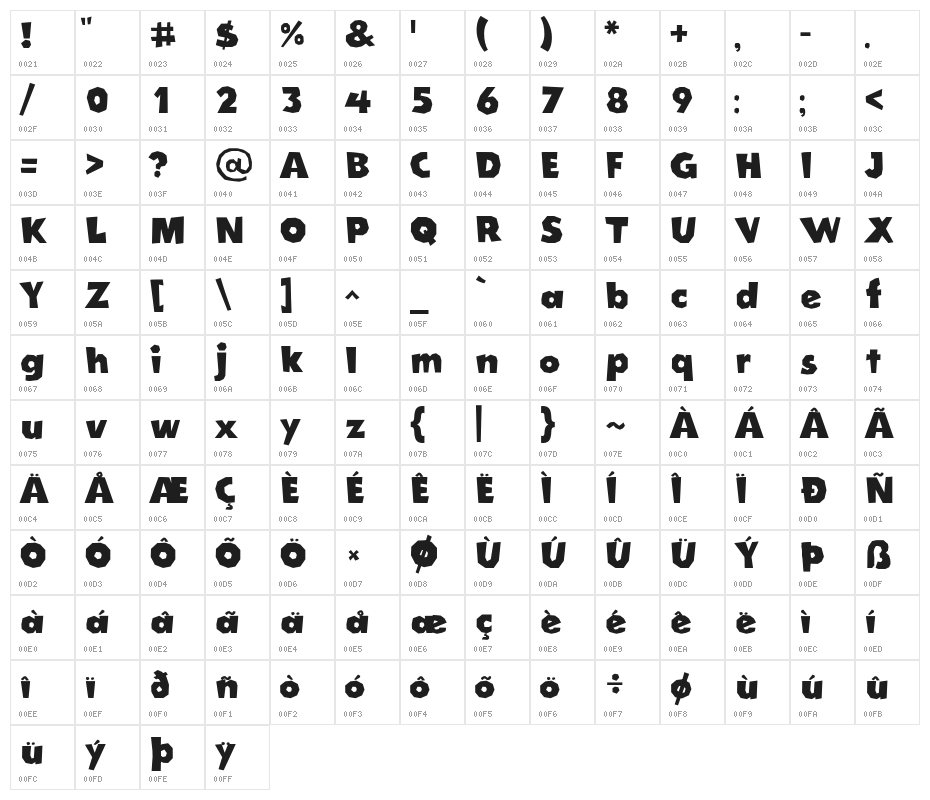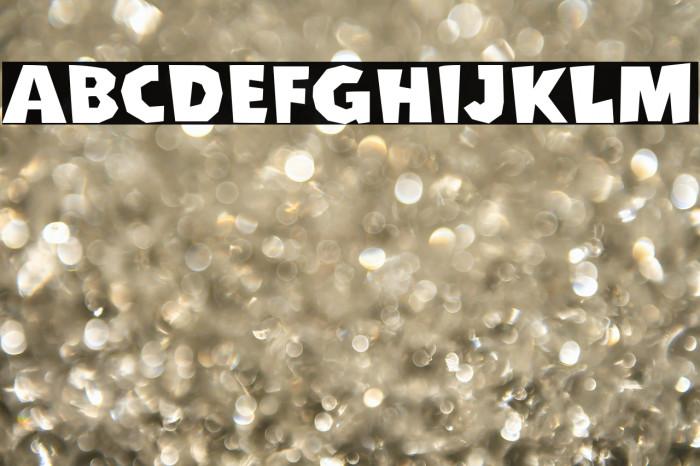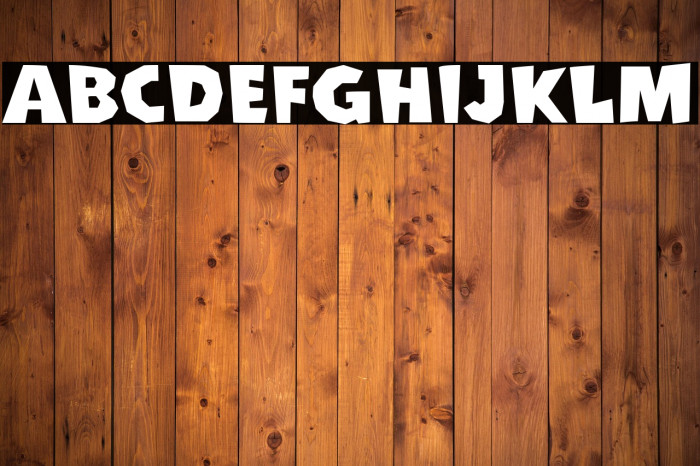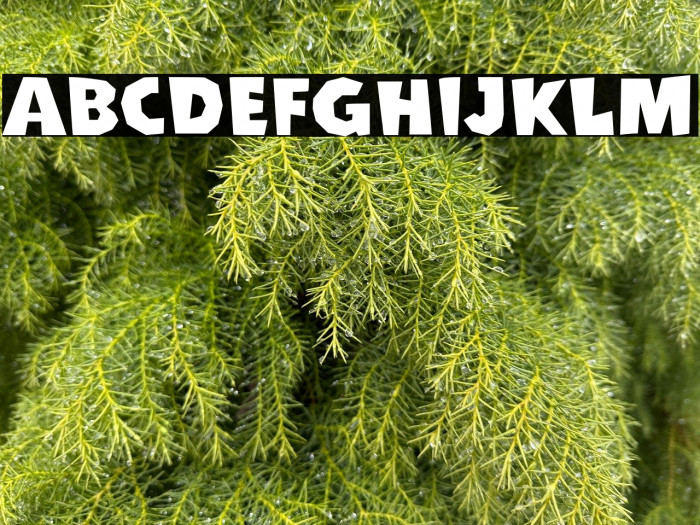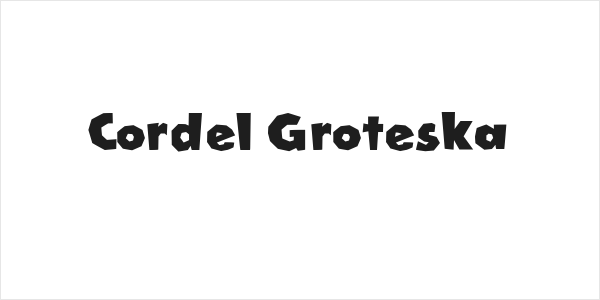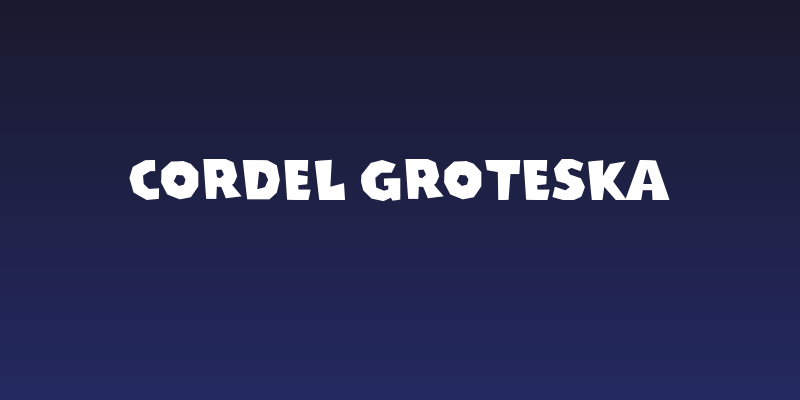
Cordel Groteska Font
Cordel Groteska Description
This font features a bold and playful design with a hand-crafted appearance. The characters have an irregular, slightly uneven structure, giving them a dynamic and lively feel. The uppercase and lowercase letters maintain a consistent style, with thick strokes and sharp angles that create a sense of movement. The numbers and special characters follow the same aesthetic, ensuring a cohesive look across all text elements. This font's unique style makes it stand out, offering a creative and artistic vibe suitable for various design projects.